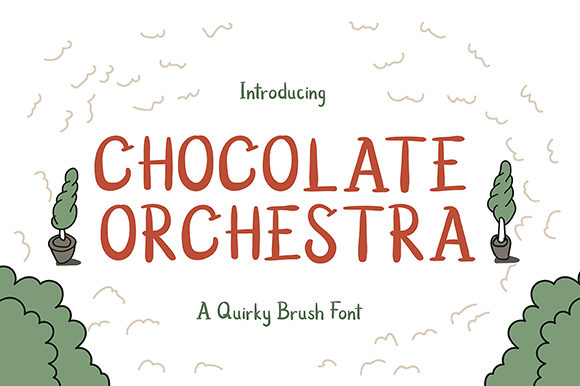
Welcome to the realm of Chocolate Orchestra, a captivating display font that dances with charm and playfulness. Its adorable and quirky personality will instantly infuse your designs with a joyous spirit, making them pop with delight. Step into the world of visual indulgence as this extraordinary font elevates your creative ideas to new heights. Its captivating dance of characters will add a touch of magic to any project, creating an unforgettable experience for your audience.
Visualize your words dancing across the screen, each letter a delightful treat for the eyes. Chocolate Orchestra's enchanting aura will transform your designs into whimsical masterpieces, leaving a lasting impression on anyone who encounters them. Whether it's a playful logo that exudes happiness, a vibrant poster that captures attention, or an enchanting invitation that sparks curiosity, this font has the power to transform your vision into a symphony of visual delight.
Unleash your creativity and let Chocolate Orchestra guide you on a journey of visual enchantment. Its charming characters will add a touch of whimsy to your branding, social media posts, or website designs, making them irresistibly attractive. Embrace the unique beauty of this font and watch as your projects blossom into a visual feast, captivating your audience and leaving them craving more.